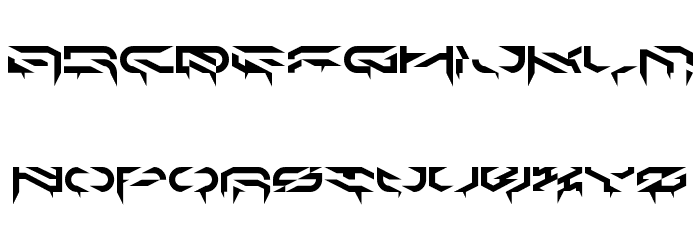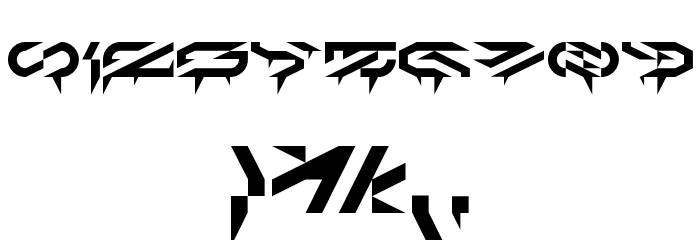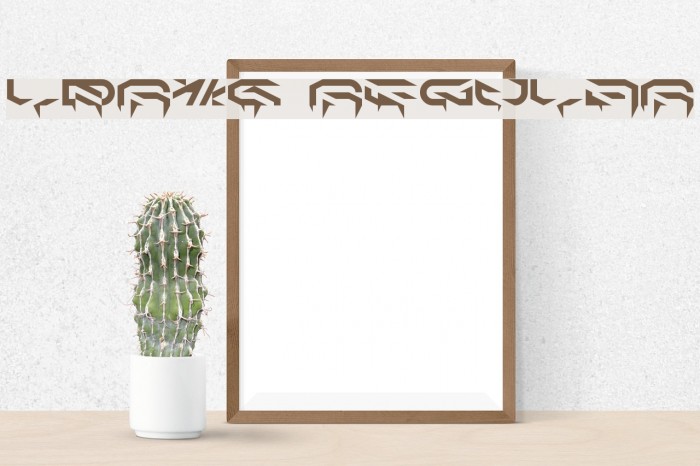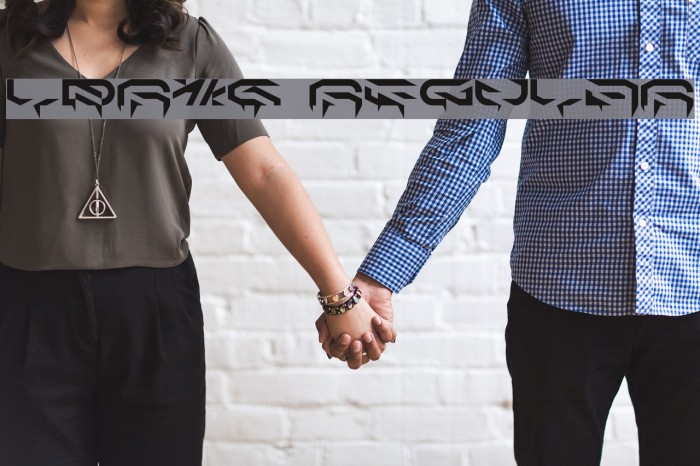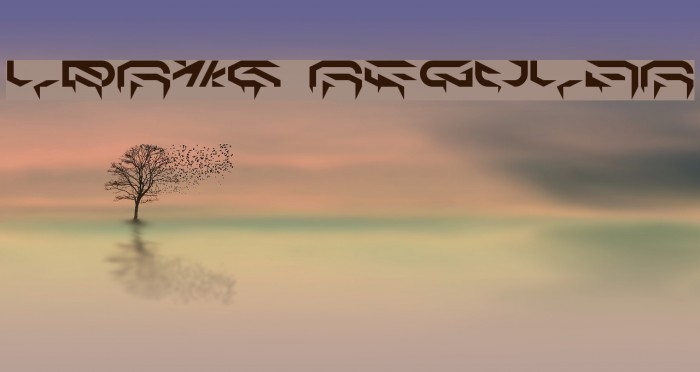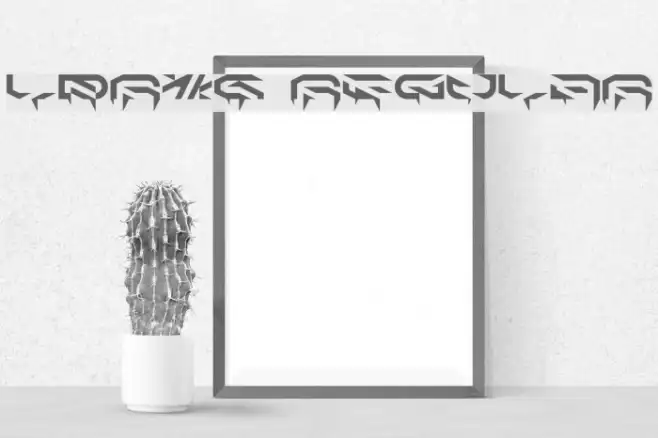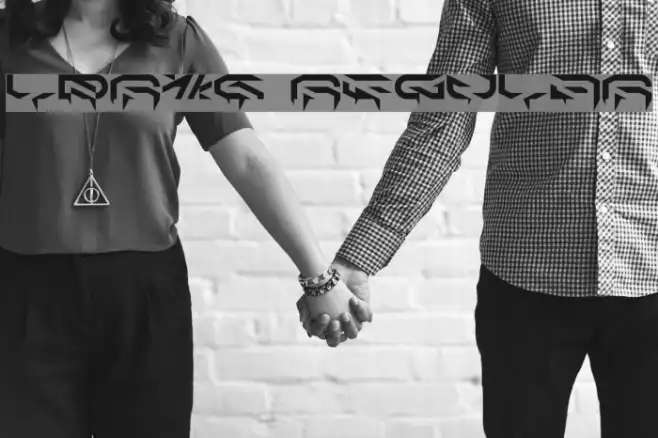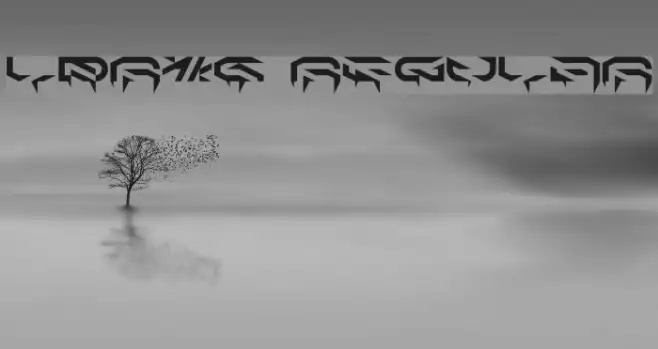
LDR#6 Regular Font
This font features a highly stylized and angular design, characterized by sharp edges and geometric forms. The letters are constructed with a futuristic aesthetic, incorporating pointed tips and intersecting lines that create a dynamic and aggressive appearance. The overall look is bold and striking, making it suitable for projects that require a modern and edgy feel. The uppercase and lowercase letters maintain a consistent style, while the numerals and special characters follow the same design principles, ensuring uniformity across all glyphs.
A futuristic and angular font with sharp, geometric forms.
- Proposed Projects: Ideal for sci-fi themed designs, video game graphics, posters, and branding that requires a modern and edgy look.